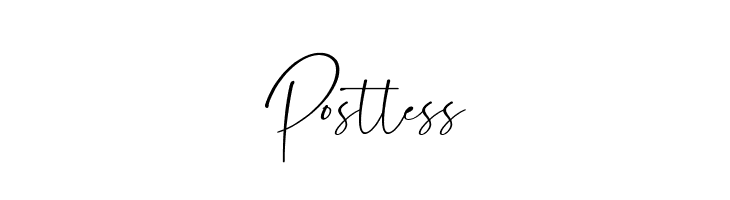
A playful and elegant handwritten font with fluid, dynamic strokes.
A bold, expressive script font with a fluid, handwritten style.
A delicate, flowing script font with elegant, thin strokes.
A playful, handwritten script font with a smooth, cursive flow.
A flowing, cursive font with elegant, interconnected characters.